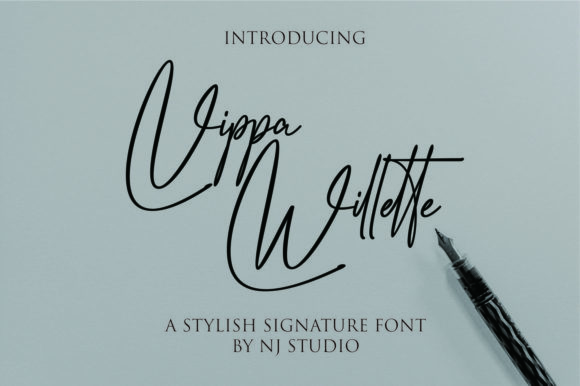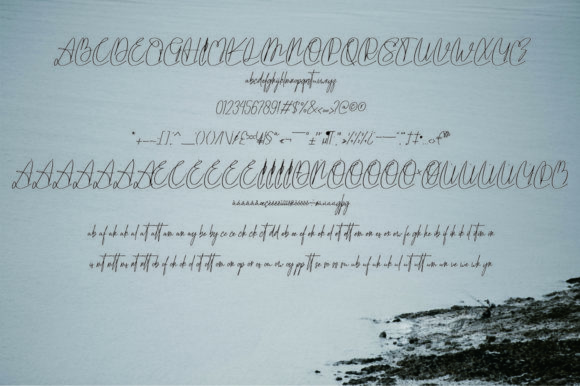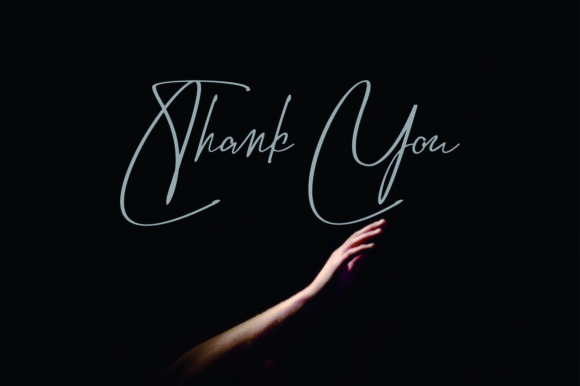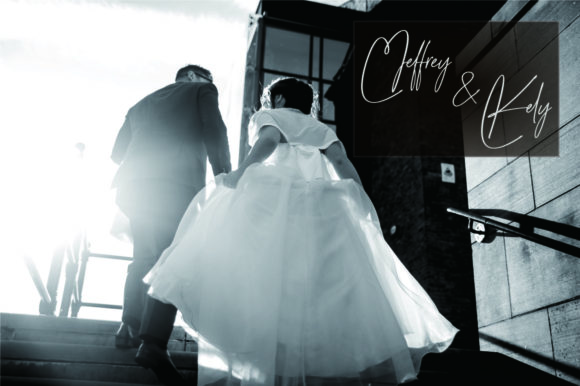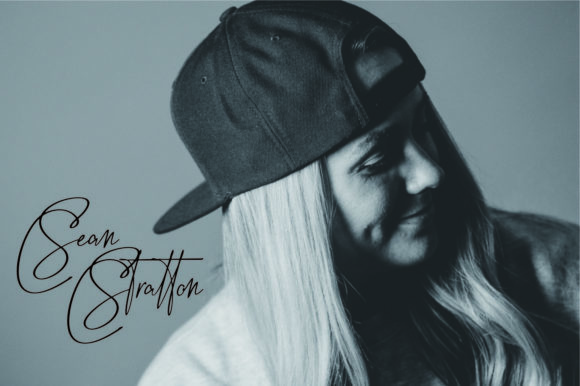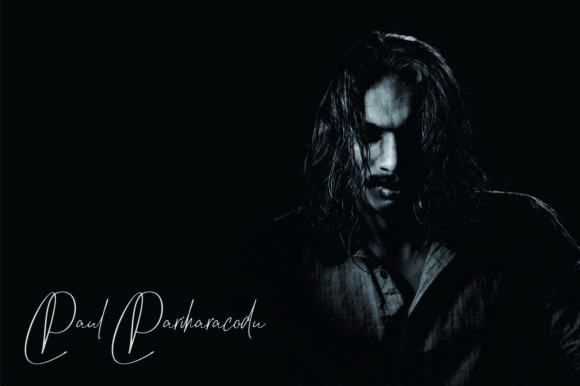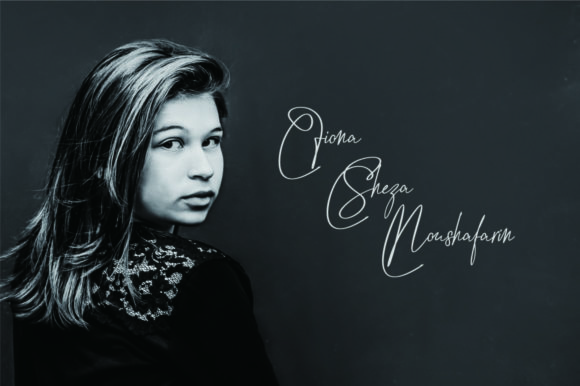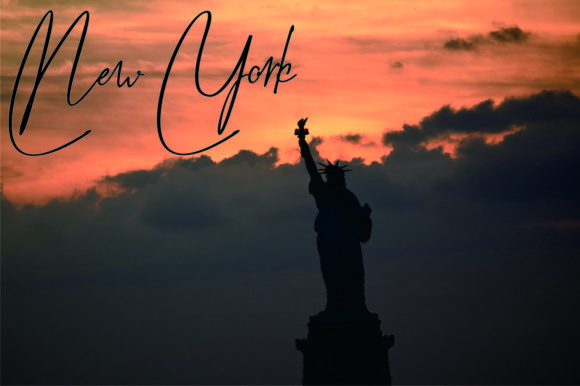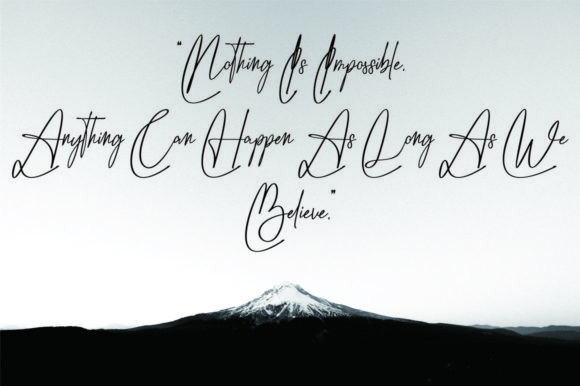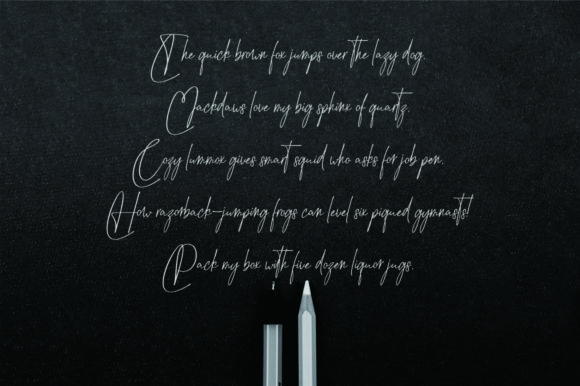
Vippa Willette Font
About Vippa Willette Font
Vippa Willette is a stylish signature font. It has exquisite characters that will give your designs an amazing look!